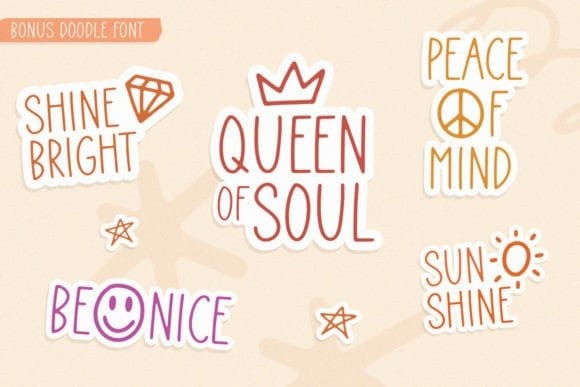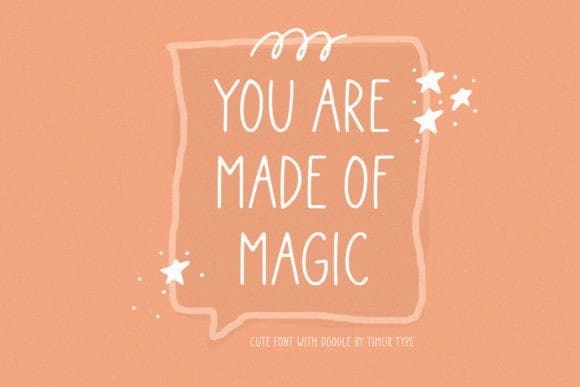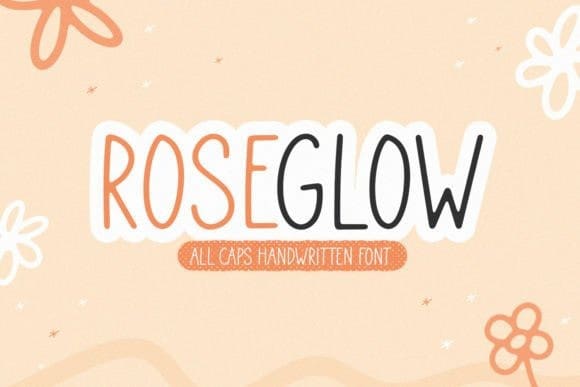
Roseglow Font
Roseglow Font is a fun and cute handwritten font. Whether you’re using it for crafts, digital design, presentations, or making greeting cards, this font has the potential to become your favorite go-to font, no matter the occasion!